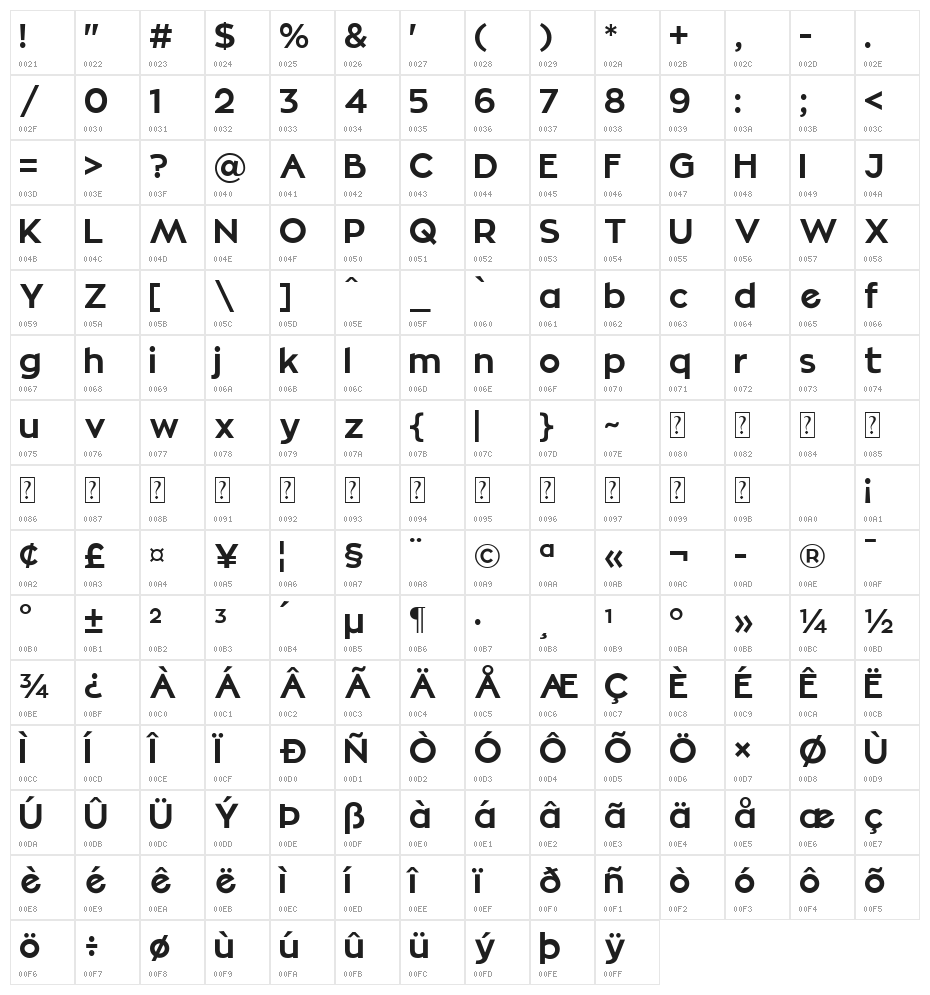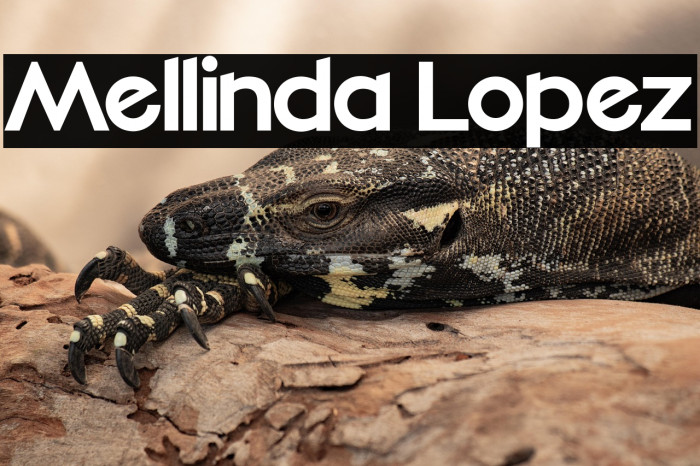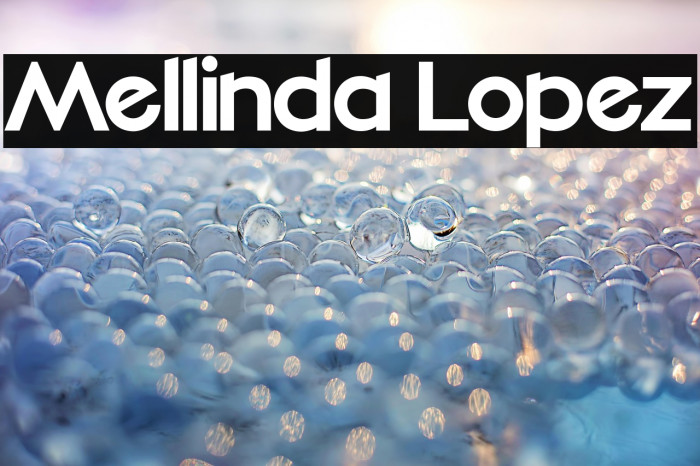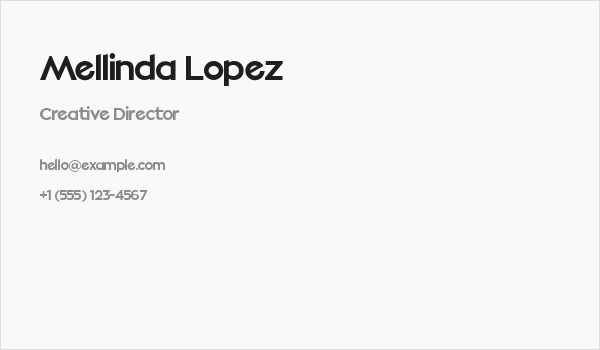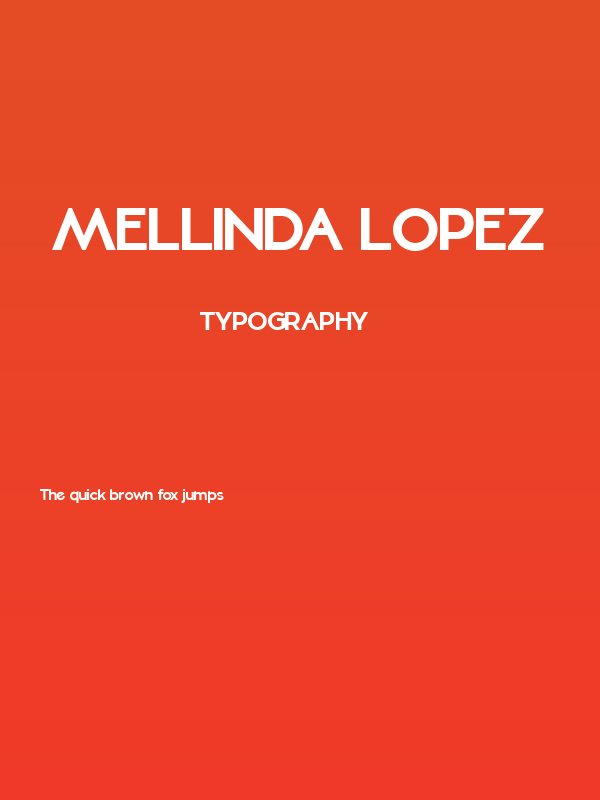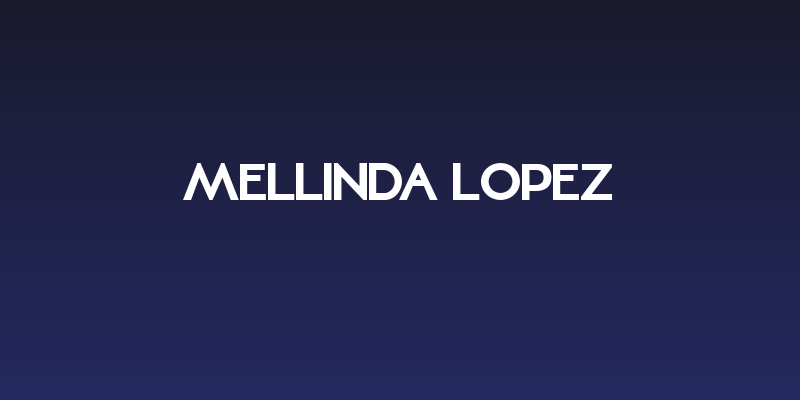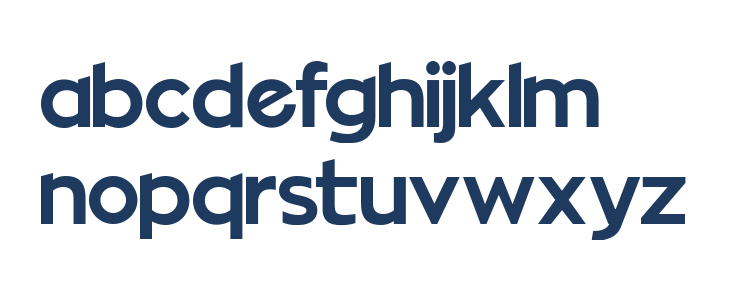
Mellinda Lopez Font
Mellinda Lopez Description
This font features a bold and modern sans-serif style with clean, geometric lines and a strong presence. The uppercase letters are uniform in height, creating a cohesive and structured look. The lowercase letters maintain a consistent roundness, contributing to the font's approachable and friendly appearance. The numerals are clear and legible, with a balanced weight that matches the alphabetic characters. Special characters are well-integrated, ensuring versatility across various applications. The overall design is sleek and contemporary, making it suitable for a wide range of design projects.